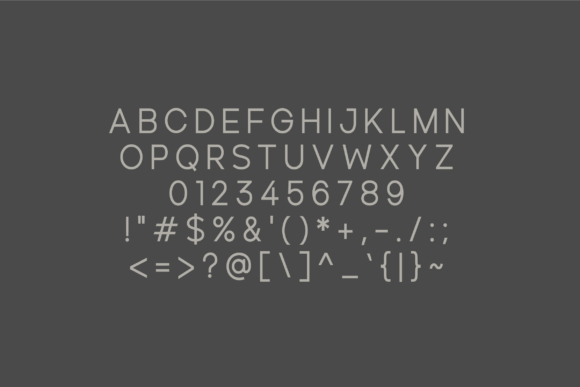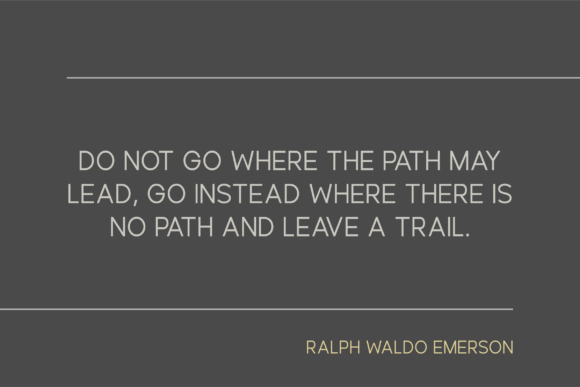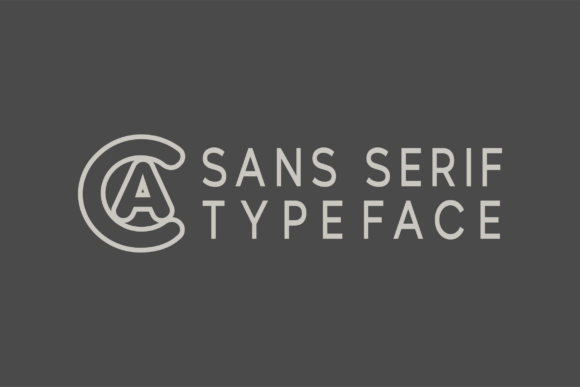
Unveiling Forceful: The Avant-Garde Sans Serif Font Revolutionizing Design
In the realm of typography, a new star has emerged, shining brightly with its elegance and versatility. Meet Forceful, an avant-garde sans serif font that is redefining the design landscape. This stunning typeface boasts an extensive character set, including upper characters, numeric figures 0-9, and a wide array of punctuation and symbols, making it a designer’s dream come true.
Aesthetic Appeal and Versatility
Forceful’s design is a masterclass in modern typography. Its clean lines, precise curves, and balanced proportions create a visually appealing aesthetic that is both elegant and impactful. This font is not just a means of communication; it’s an art form that elevates your design work to new heights. Whether you’re crafting eye-catching logos, romantic wedding invitations, memorable quotes, effective advertisements, bold prints, or riveting magazine content, Forceful is the perfect choice.
Crafting Exceptional Design with Forceful
As a designer or crafter, you’re constantly on the lookout for typefaces that can help you create exceptional work. Forceful is more than just a font; it’s a tool that empowers you to transcend mediocrity and produce designs that are truly remarkable. Its versatility allows you to experiment with various design elements, ensuring that your work stands out in a crowded design landscape.
Key Features of Forceful
- Upper Characters: Forceful includes a comprehensive set of upper characters, providing you with the flexibility to create designs that are both bold and elegant.
- Numeric Figures 0-9: The font features numeric figures 0-9, making it perfect for creating designs that require numerical data, such as infographics, charts, and graphs.
- Punctuation and Symbols: Forceful comes with an array of punctuation and symbols, ensuring that you have everything you need to create complex designs.
Applications of Forceful
Forceful’s versatility makes it suitable for a wide range of design applications, including:
- Logo Design: Create eye-catching logos that make a lasting impression with Forceful’s bold and elegant design.
- Wedding Invitations: Add a touch of romance and sophistication to your wedding invitations with Forceful’s elegant sans serif design.
- Quote Design: Make your quotes more memorable with Forceful’s bold and impactful design.
- Advertising: Create effective advertisements that grab attention with Forceful’s clean and modern design.
- Print Design: Elevate your print designs, such as brochures, flyers, and posters, with Forceful’s versatile and elegant design.
- Magazine Content: Create riveting magazine content with Forceful’s clean and modern sans serif design.
Why Choose Forceful?
With so many typefaces available, why choose Forceful? The answer lies in its unique combination of aesthetic appeal, versatility, and functionality. Forceful is not just a font; it’s a design solution that can elevate your work to new heights. Its elegant sans serif design, extensive character set, and versatility make it a valuable addition to any designer’s toolkit.
In conclusion, Forceful is a game-changing sans serif font that is revolutionizing the design landscape. Its avant-garde design, extensive character set, and versatility make it a perfect choice for designers and crafters looking to create exceptional work. Whether you’re designing logos, wedding invitations, quotes, advertisements, or magazine content, Forceful is the perfect tool to help you transcend mediocrity and produce designs that are truly remarkable. Embrace Forceful and elevate your design work to new heights.